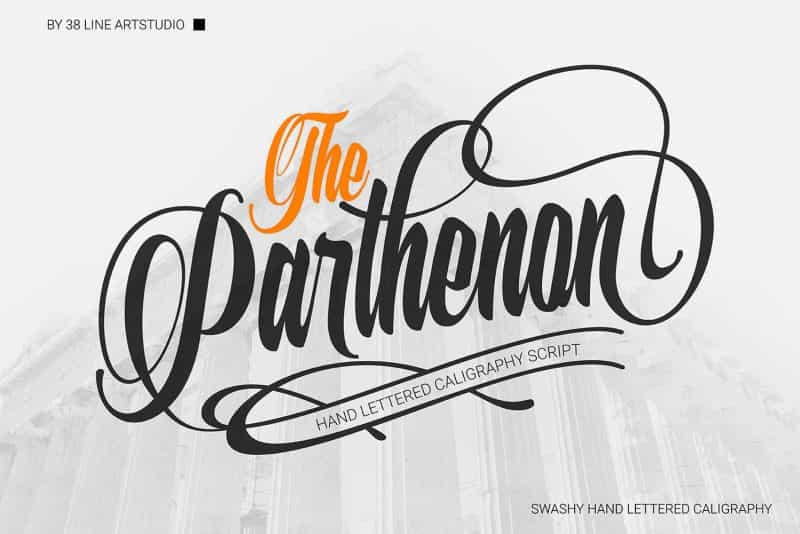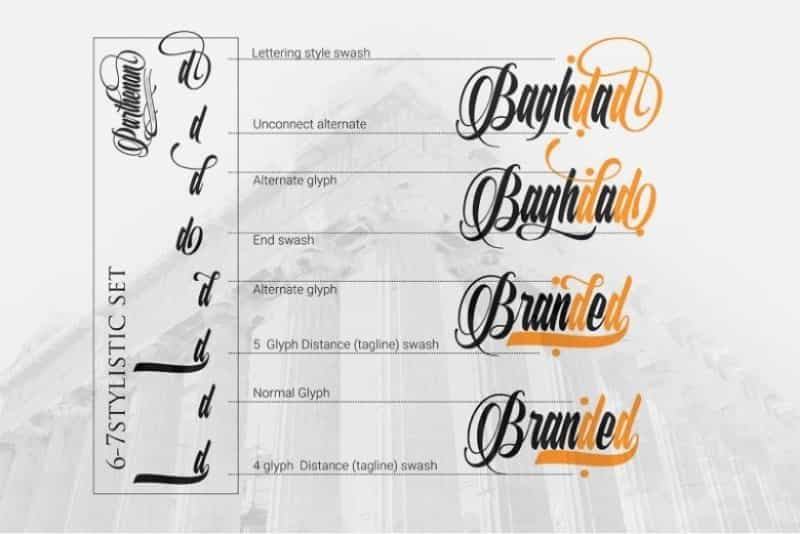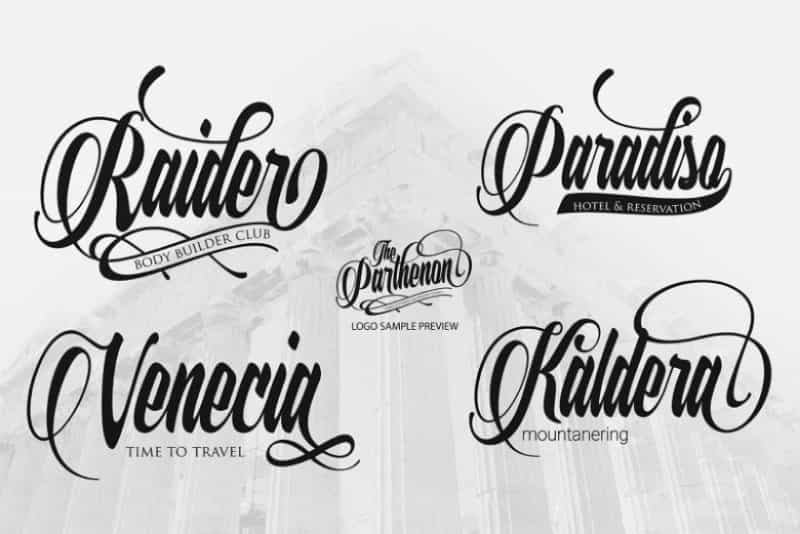
The Parthenon is a font of the calligraphy script type with lettering style. This font has 6 to 7 alternates, this combination makes the lettering look fabulous. The lettering style developed by The Parthenon is perfect to be used in the branding and package designing field. To meet this need, we also provide swashes and ligatures to help in the making of logos.